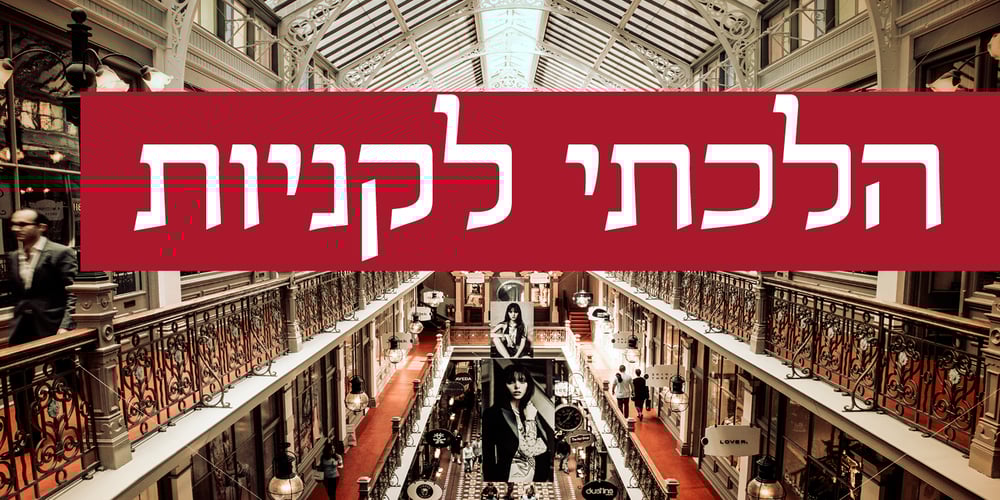
Behetem Lachok MF
Behetem Lachok MF font
Behetem Lachok MF Font Family was designed by Eliyahu Fried and published by Masterfont. Behetem Lachok MF contains 2 styles and family package options. This classic title font has a wide proportion and minor contrast to make it the ideal choice for headlines.